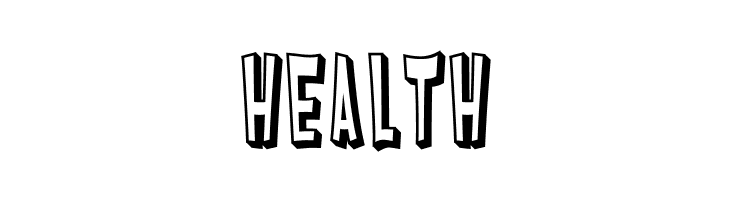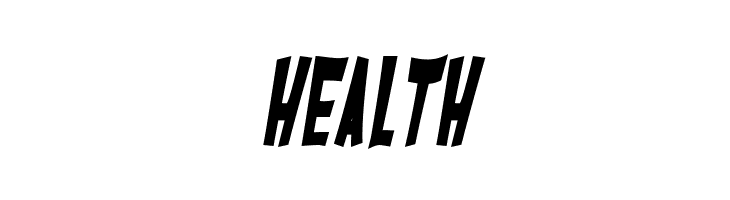
A playful and dynamic font with bold, whimsical elements.
A fluid and elegant script font with graceful curves and a sophisticated flair.
A bold, pixelated font with a retro, digital aesthetic.
A cursive, flowing script with elegant, connected characters.
A bold, cursive font with smooth, flowing lines and a handwritten appearance.
A bold, monospaced font with a modern and vintage blend.
A pixelated, retro-style font with a blocky, digital appearance.
A dynamic, brush-style script font with bold, slanted strokes.
A bold, chunky font with a playful, hand-drawn style.
A bold, distressed font with a rugged, grunge aesthetic.
A bold, geometric font with a futuristic digital aesthetic.
A bold, textured, and decorative font with a vintage, rugged style.
A bold, futuristic font with sharp angles and a dynamic slant.
A dynamic, edgy font with sharp, angular strokes and a calligraphic flair.
A vintage script font with elegant, flowing cursive strokes and high contrast.
A bold, geometric font with a futuristic and edgy style.
A playful, hand-drawn font with exaggerated curves and a whimsical style.
A playful, informal font with rounded, handwritten-style characters.
A futuristic, geometric font with sharp angles and clean lines.
A dynamic, angular font with a modern, handwritten feel.
A tall, narrow, hand-drawn font with a unique and artistic style.
A modern, geometric font with clean lines and consistent stroke width.
A bold, geometric font with a modern and assertive style.
A bold, brush-style font with a dynamic, hand-drawn appearance.
A whimsical and playful font with exaggerated curves and dynamic strokes.
A whimsical, festive font with star-like embellishments and playful cutouts.
A playful, hand-drawn font with a crayon-like appearance and thick, rounded strokes.
A bold, distressed font with jagged edges and a turbulent, rebellious style.
A bold, gothic-inspired font with sharp, angular edges and dramatic flair.
A dot matrix font with a futuristic, digital display style.
A dynamic calligraphic font with fluid, sweeping strokes and artistic flair.
A bold, futuristic font with sharp, angular edges and a geometric structure.